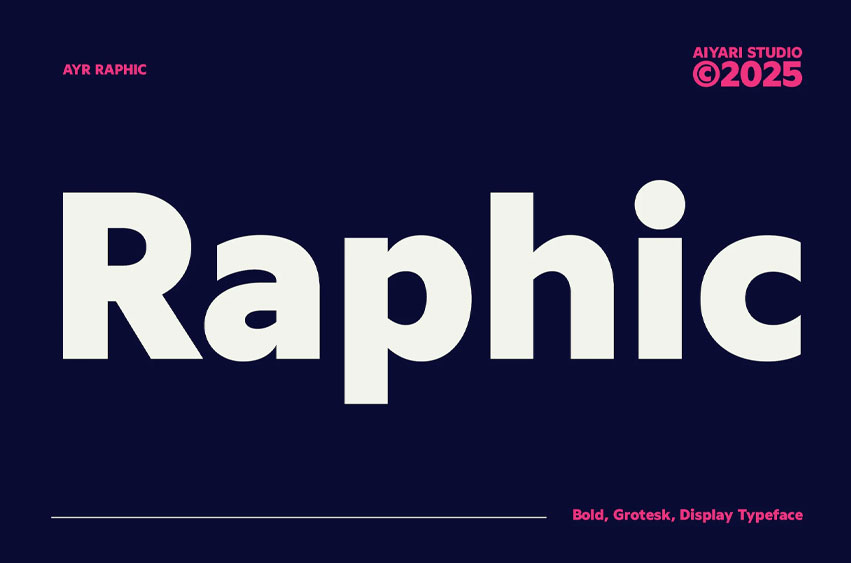
Raphic Font is a bold Grotesk display typeface built for maximum impact. Its geometric structure keeps things clean and solid, while subtle retro cues nod to mid-century modern design. Raphic balances sharp clarity with nostalgic charm, giving your layouts confidence without looking overworked.
With heavy black weight and tight spacing, whether it’s on branding, packaging, album covers, editorial layouts, or digital banners, Raphic delivers a visual punch with timeless style.